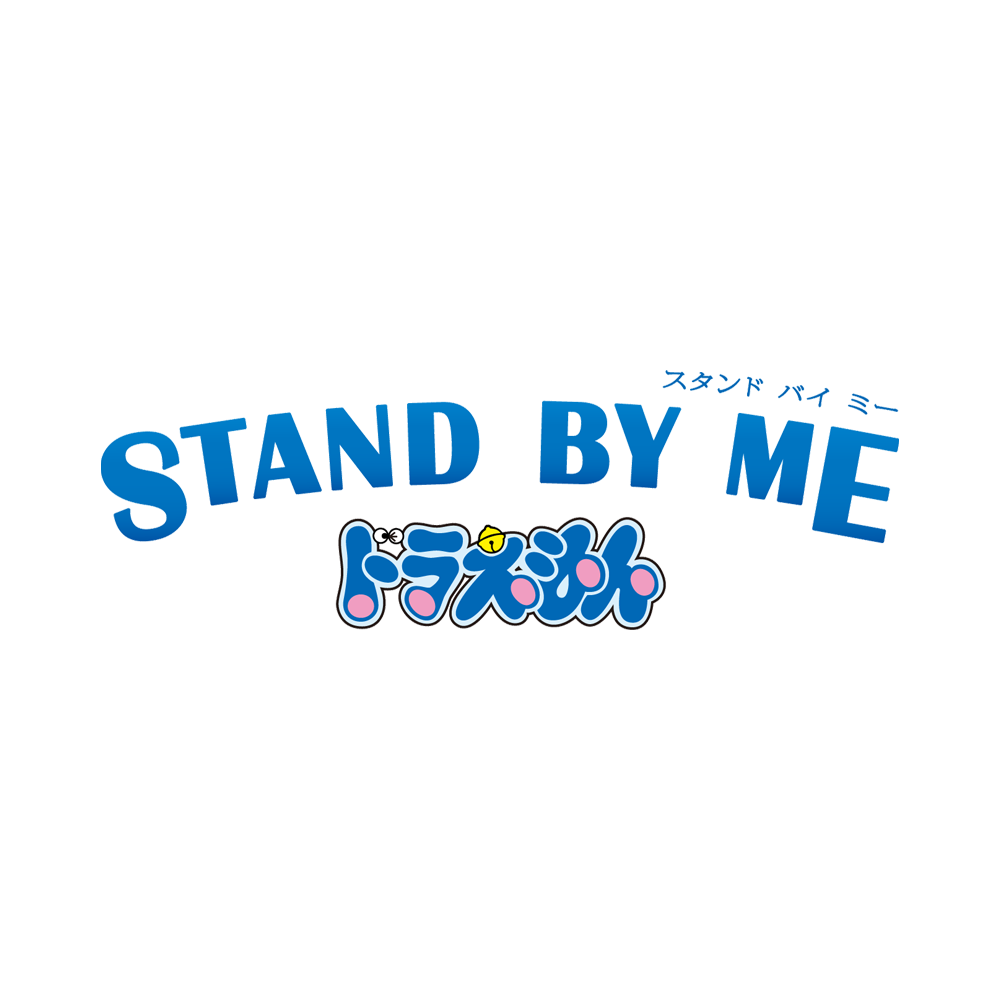
Stand by Me Doraemon Font
AdventureStand by Me Doraemon is a 2014 Japanese animated film based on the popular manga and anime series Doraemon. It follows the adventures of a robotic cat from the future as he helps a young boy navigate the challenges of growing up.
The Stand by Me Doraemon title in the poster uses Britannic. Stephenson Blake designed the typeface as a stressed sans-serif, in which vertical lines are clearly thicker than horizontal lines.